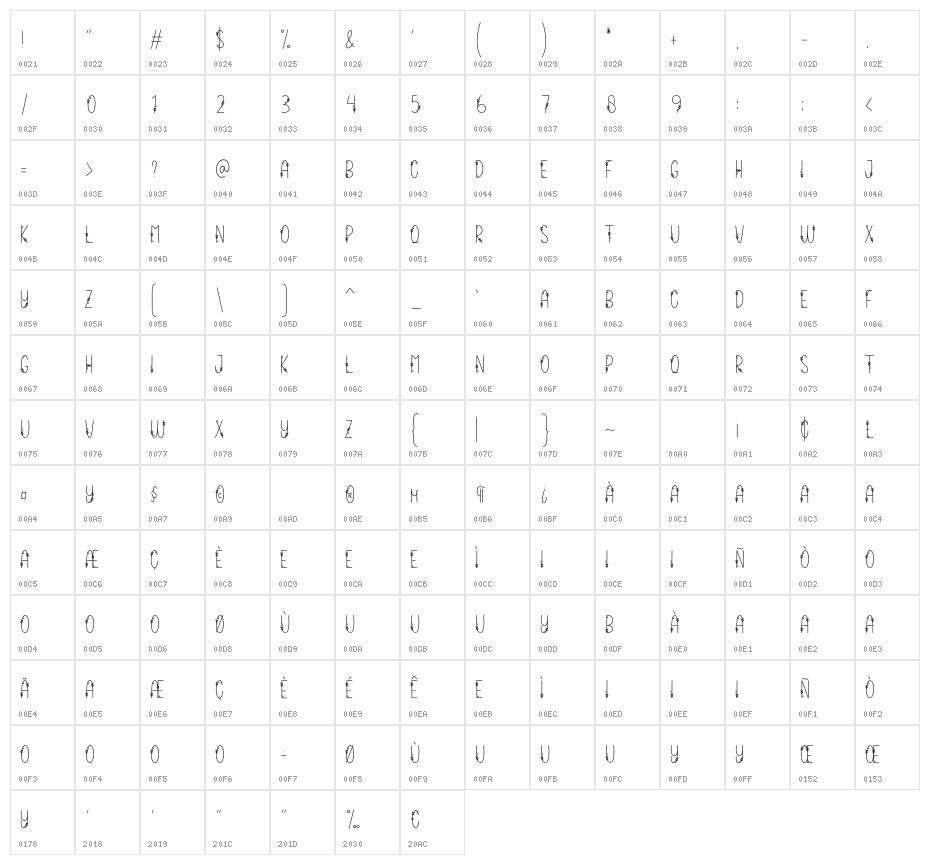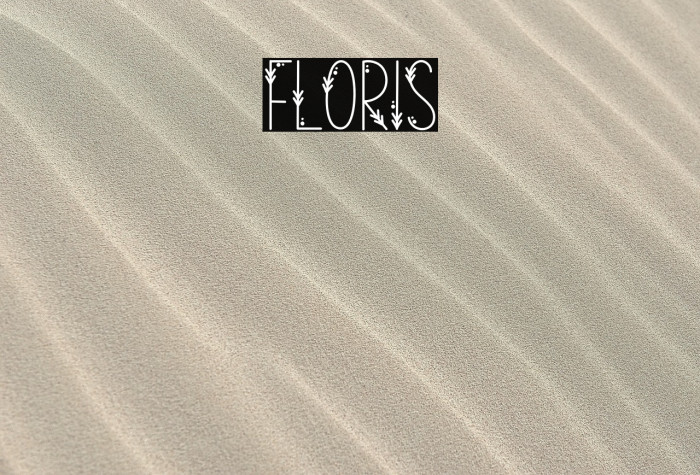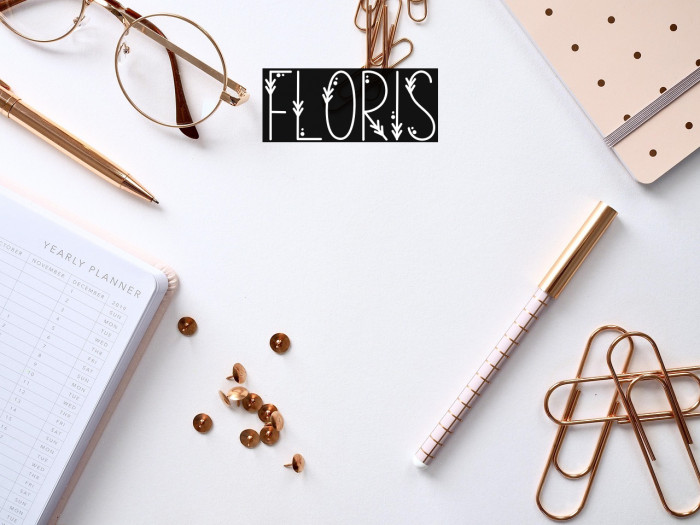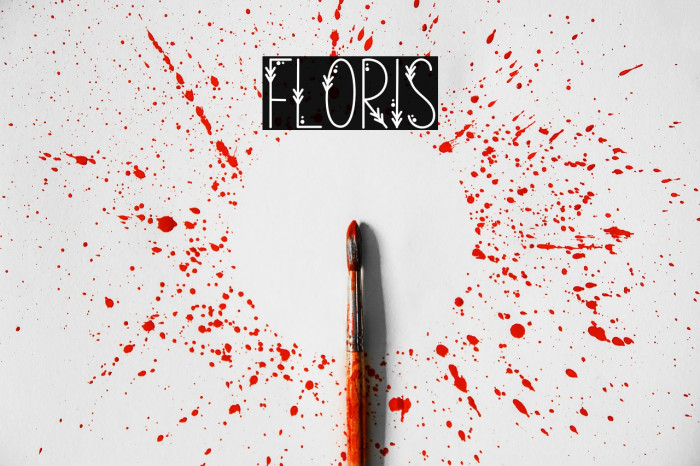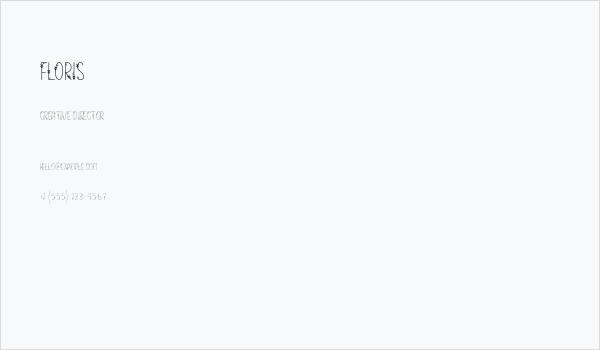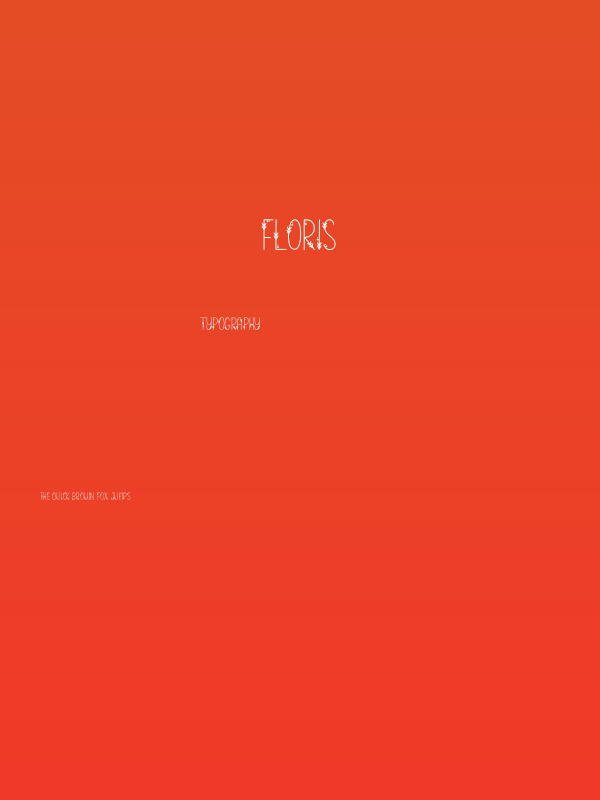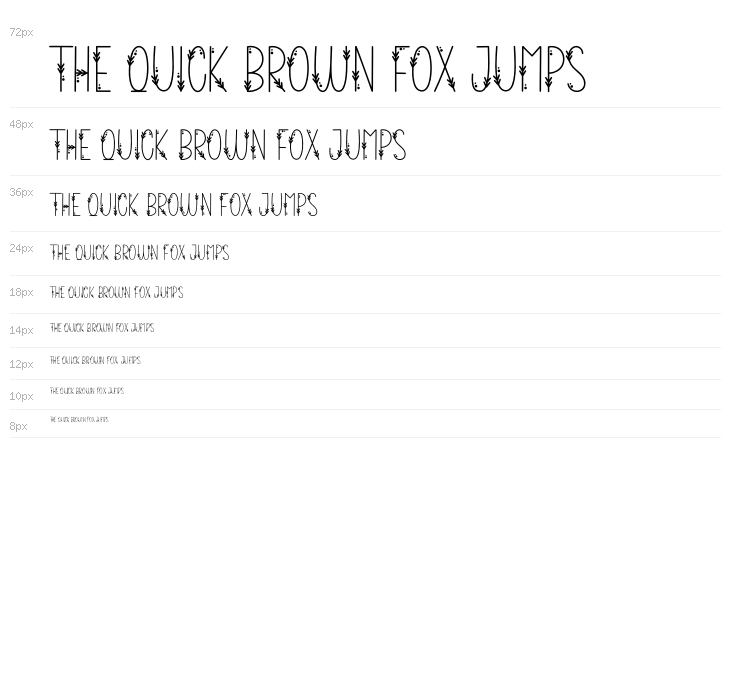
Floris Font
Floris Description
This font features a unique decorative style with floral embellishments integrated into each character. The letters are tall and slender, with delicate vines and leaves extending from the main strokes, giving it an organic and whimsical appearance. The uppercase and lowercase letters maintain a consistent design, with numerals and special characters also incorporating the same botanical elements. This font is ideal for projects that require a touch of nature or elegance, such as wedding invitations, greeting cards, or eco-friendly branding. The intricate details make it stand out, while the overall design remains legible and stylish.
Use CaseHeadlines, Logos, Invitations
Proposed ProjectsIdeal for wedding invitations, greeting cards, eco-friendly branding, and decorative posters.